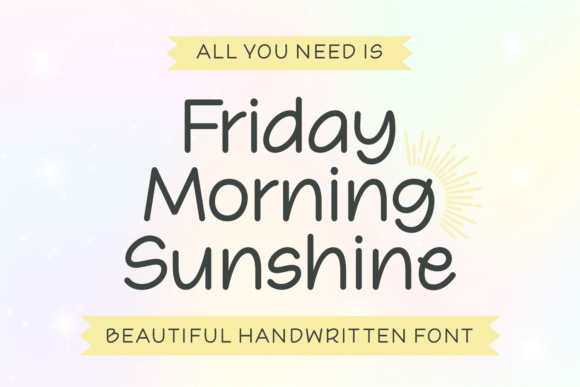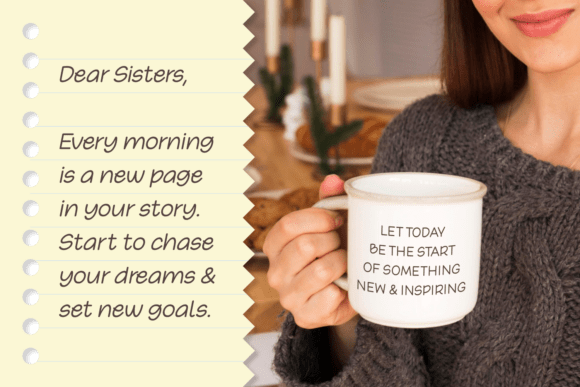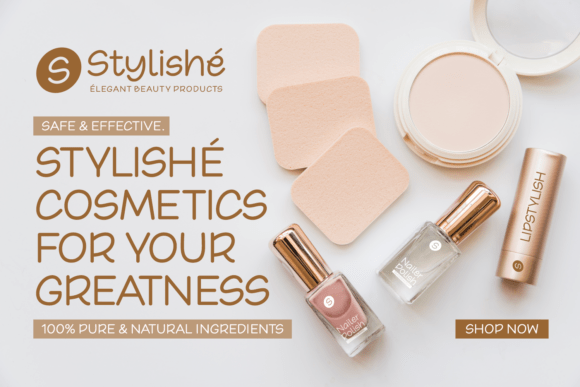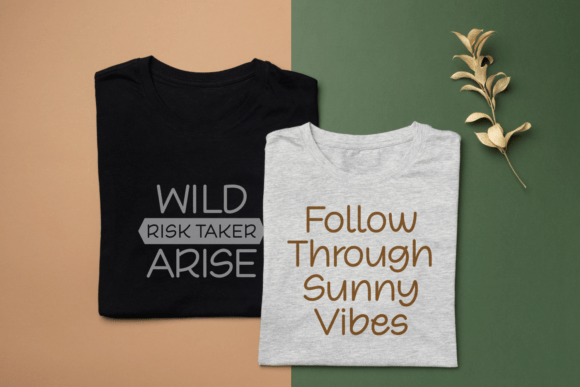
Friday Morning Sunshine Font
Start every design project on a bright note with Friday Morning Sunshine, a beautiful handwritten font that radiates warmth and casual elegance. This typeface features a clean, monoline weight with soft, rounded terminals and a friendly, upright posture that mimics the neat handwriting of a personal journal. Its balanced proportions and breezy rhythm make it an exceptional choice for lifestyle branding, inspirational social media quotes, creative blog headers, and personalized stationery. Whether you are designing a cozy cafe menu or a heartfelt greeting card, Friday Morning Sunshine delivers a sense of approachable sincerity and handcrafted joy to your visual storytelling.